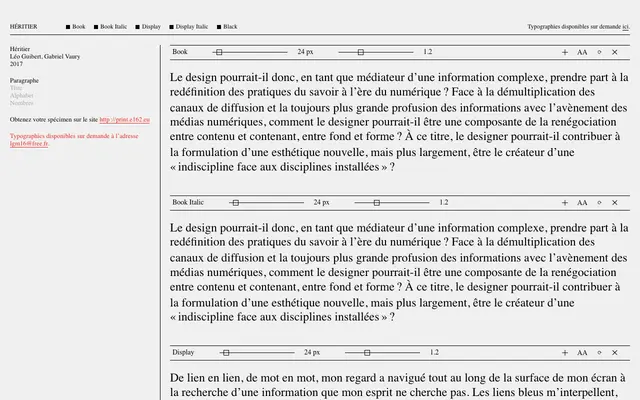
Héritier
E162 · Léo Guibert, Gabriel Vaury · 2017
A two-optical-size serif with Book and Display cuts, designed by Léo Guibert and Gabriel Vaury at E162 in 2017.
Designed by Léo Guibert and Gabriel Vaury, Héritier offers five styles across two optical registers: a Book cut for running text and a Display cut for larger settings, each available in roman and italic, plus a standalone Black weight. The 559-character set suggests reasonable language coverage for Western European Latin typography. Its origin in a French design school context gives it a considered, academic tone suited to editorial and cultural publishing.
Héritier has distinct Book and Display optical cuts alongside a Black weight, suggesting a traditionally structured serif with contrasting stroke modulation suited to both text and headline settings.